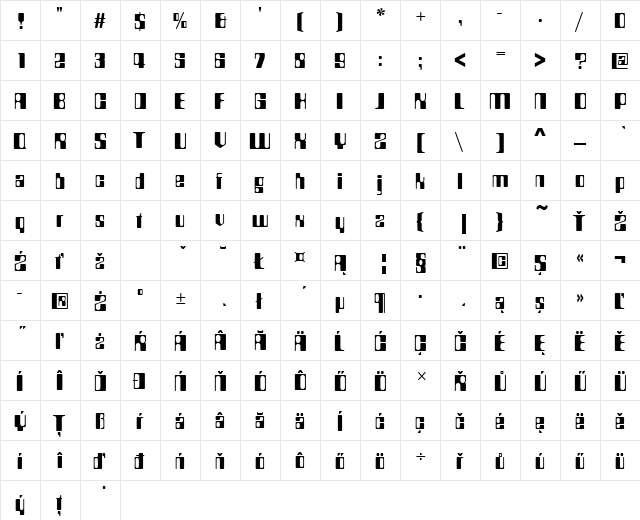
CountdownDEE Regular Font Preview
CountdownDEE Regular
Design Context for CountdownDEE Typeface
CountdownDEE is a composed and adaptable typeface that performs quietly and consistently across a wide range of design contexts.